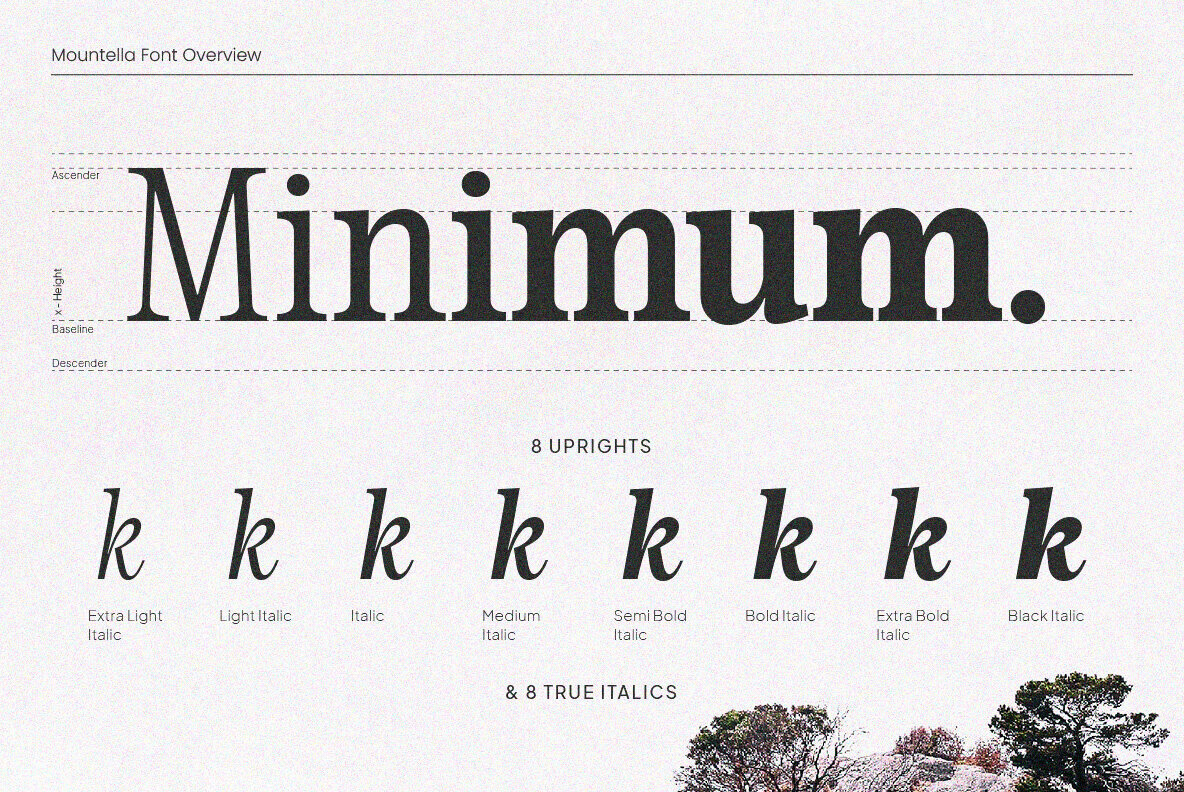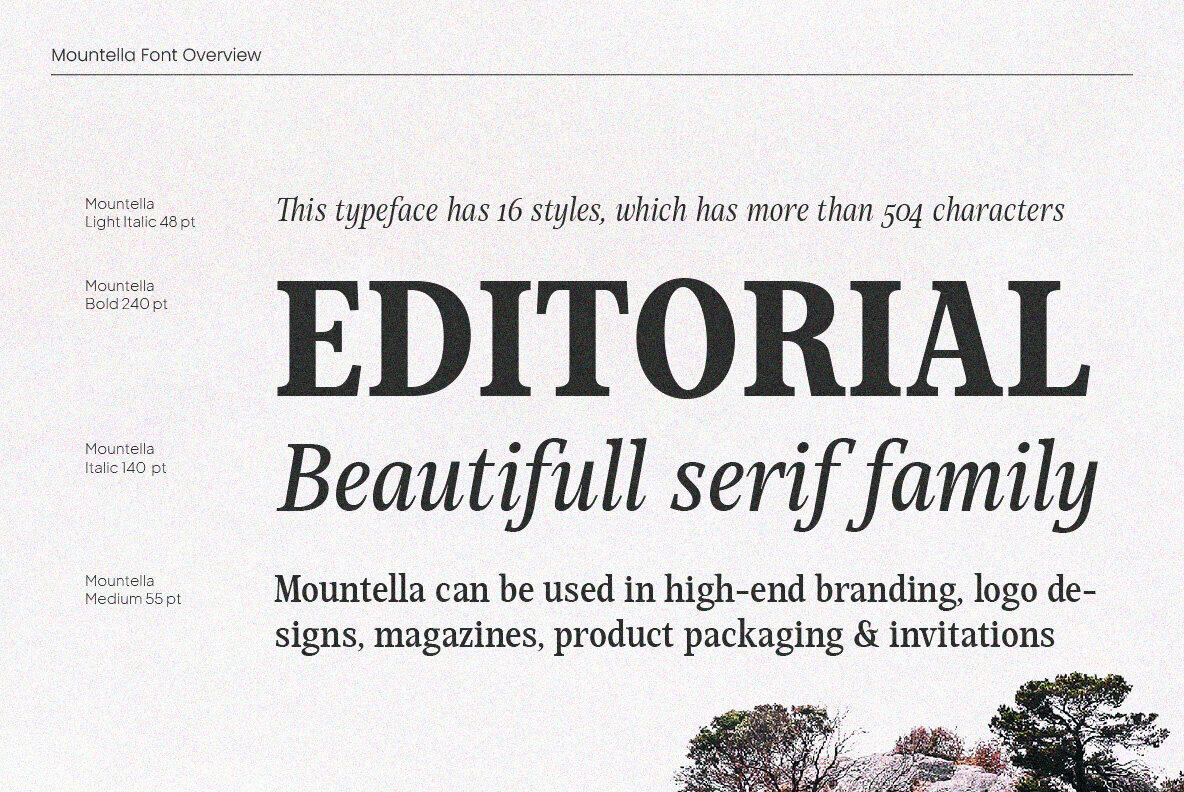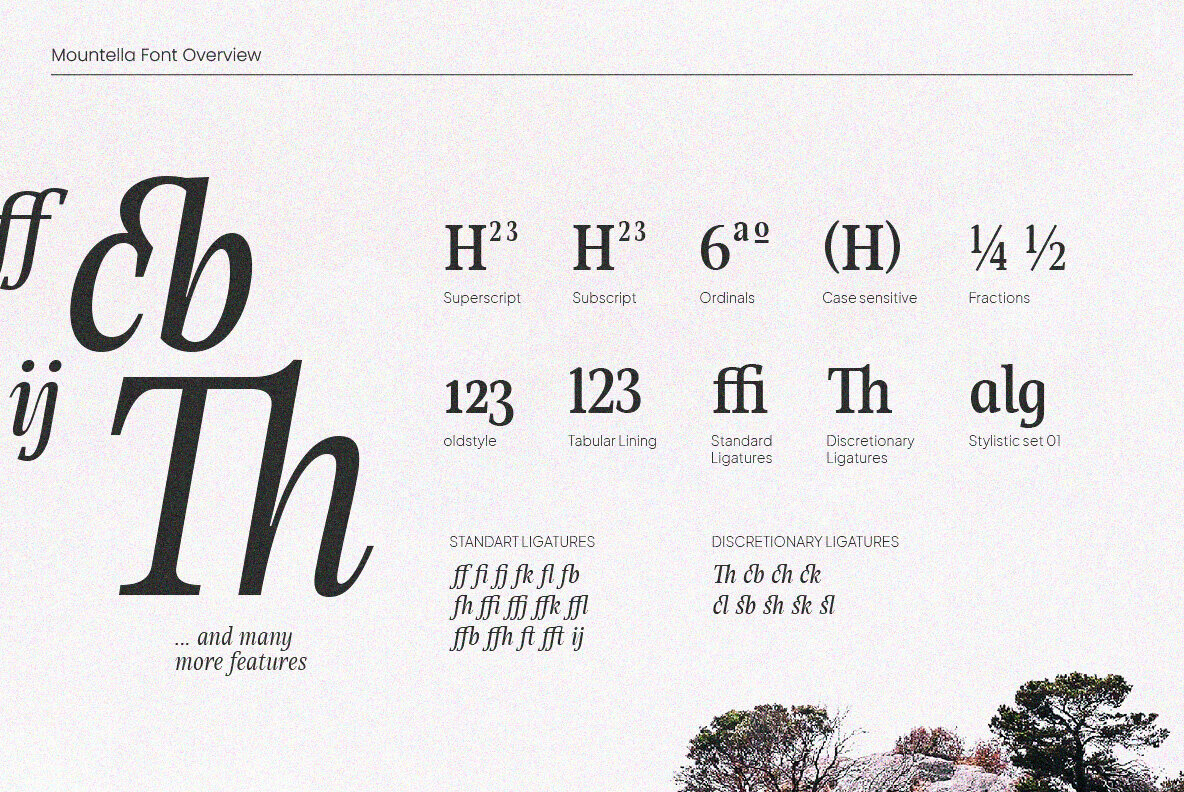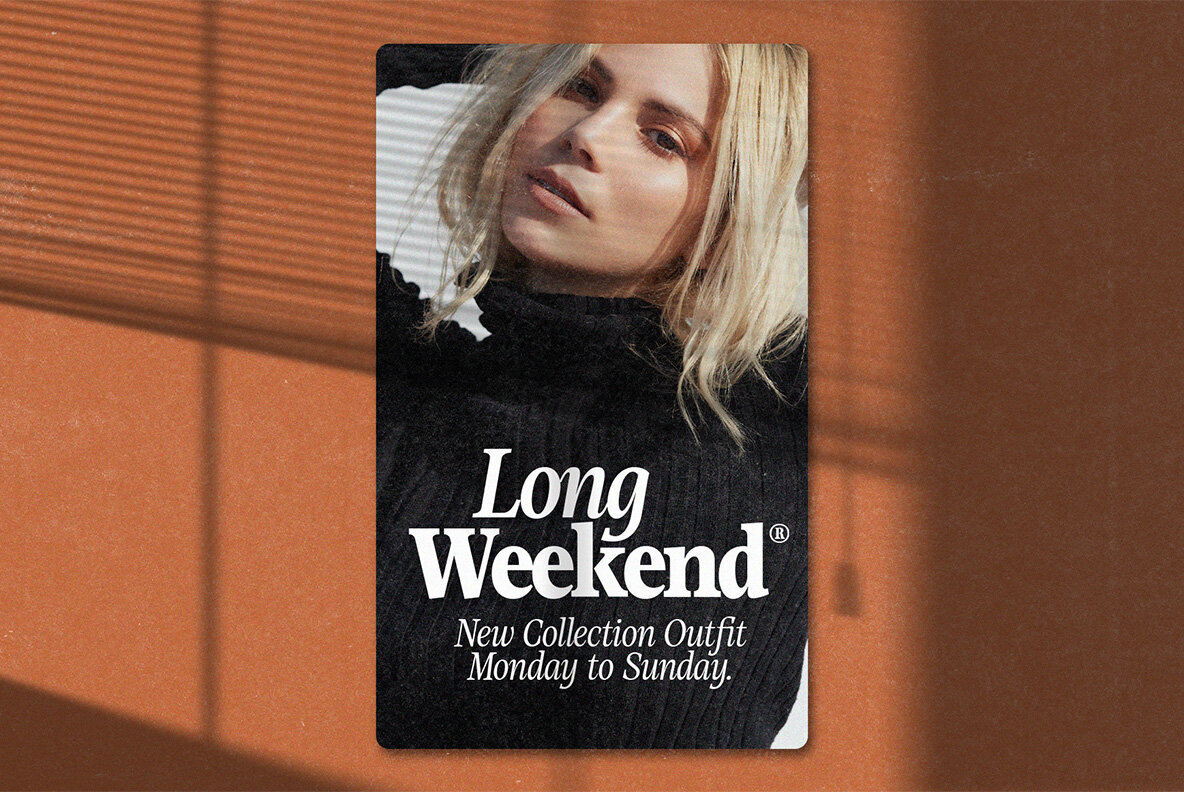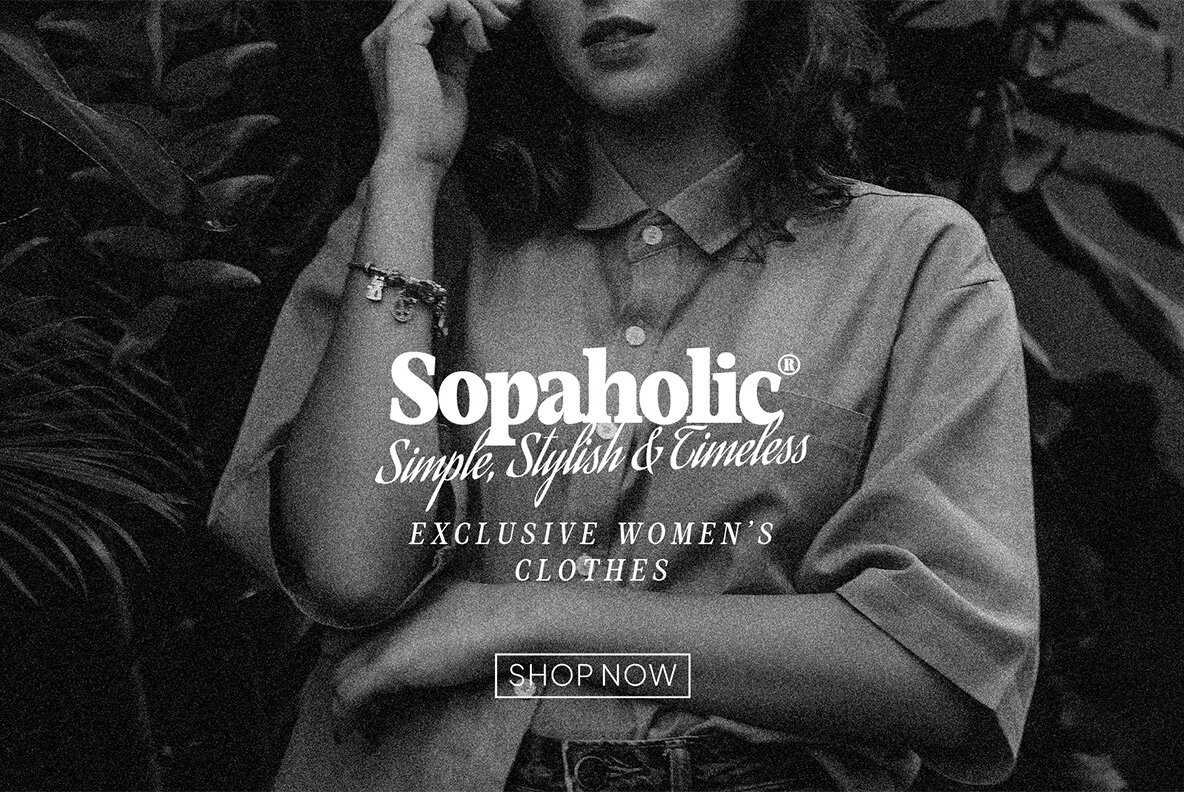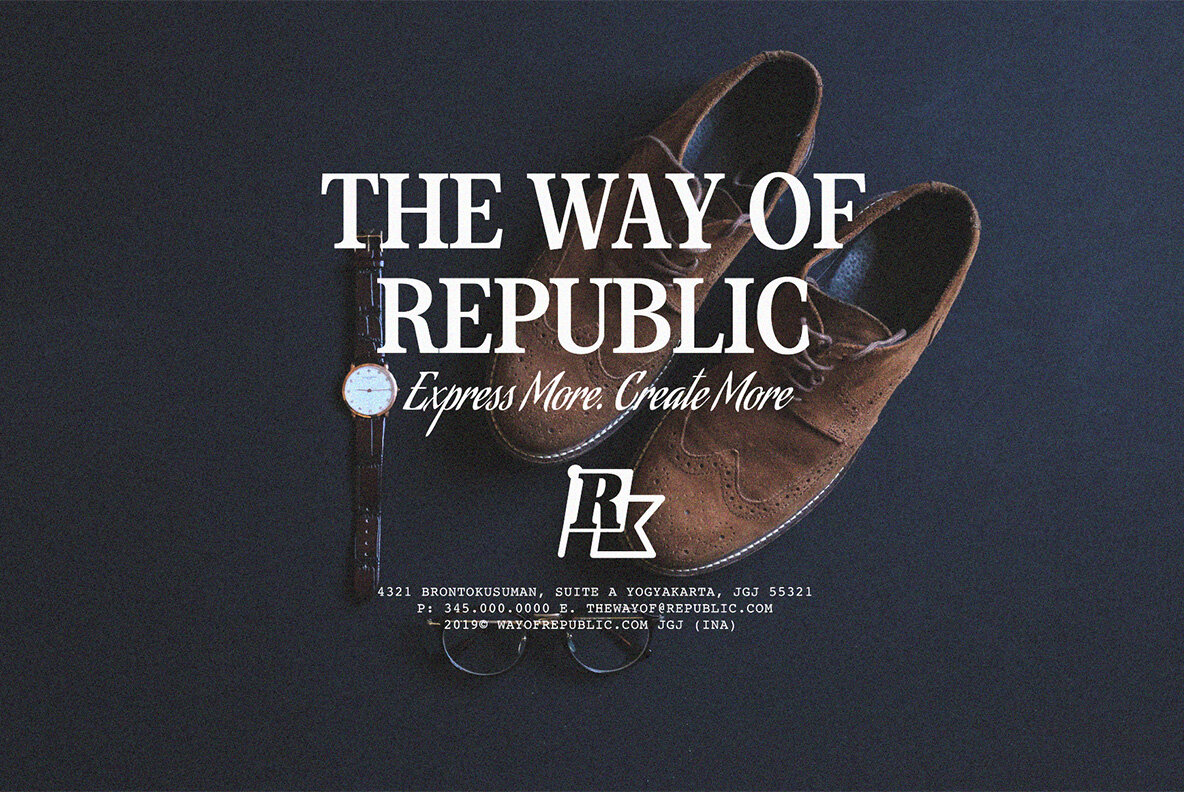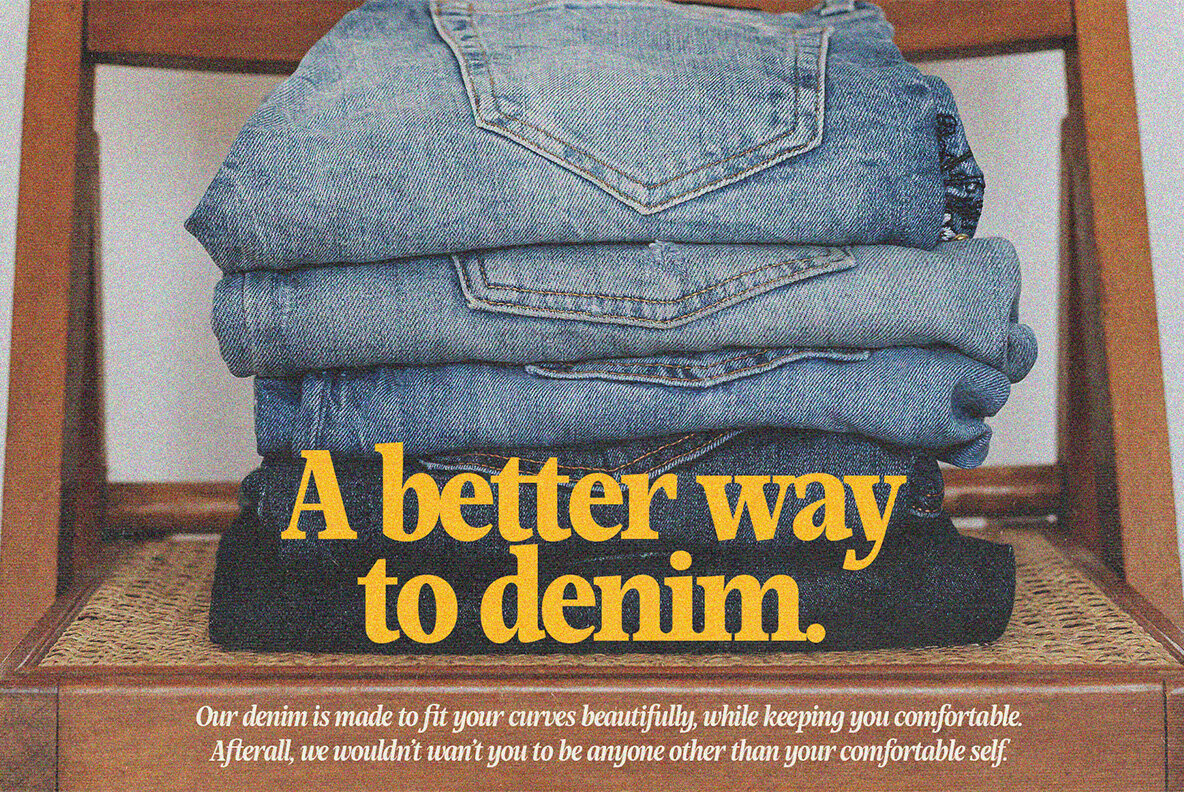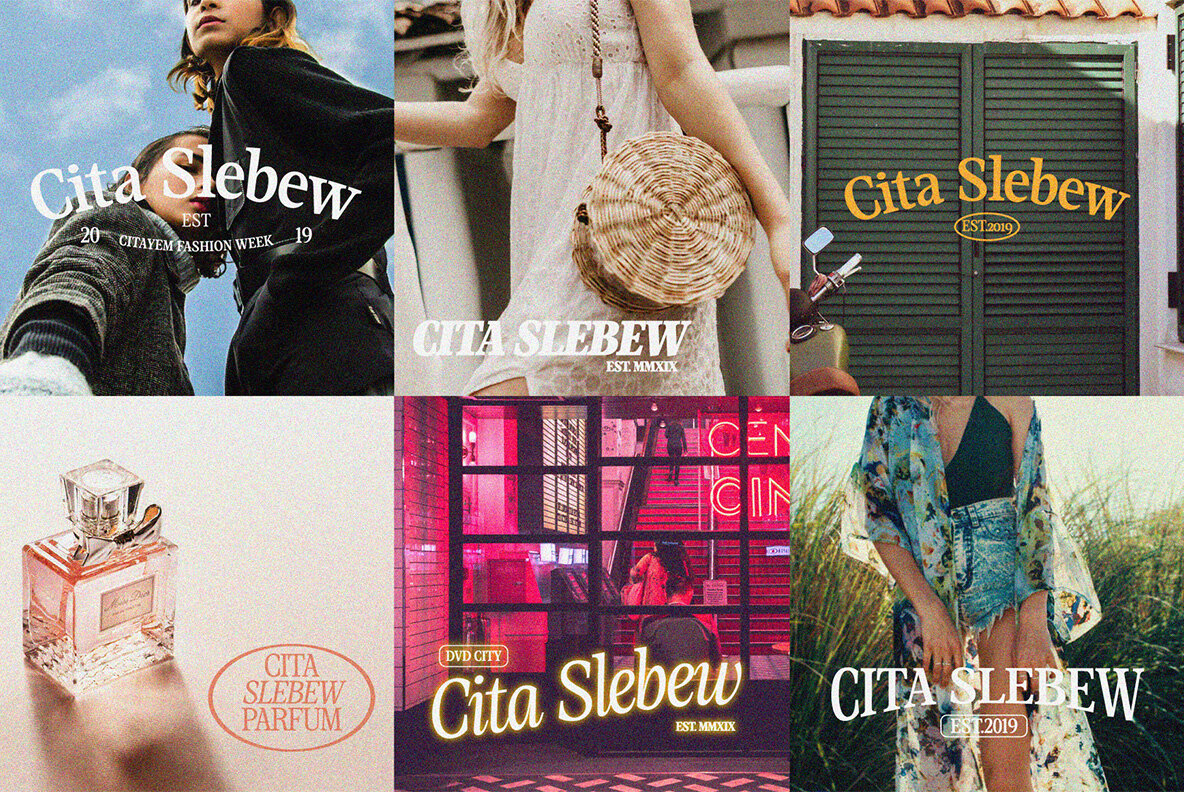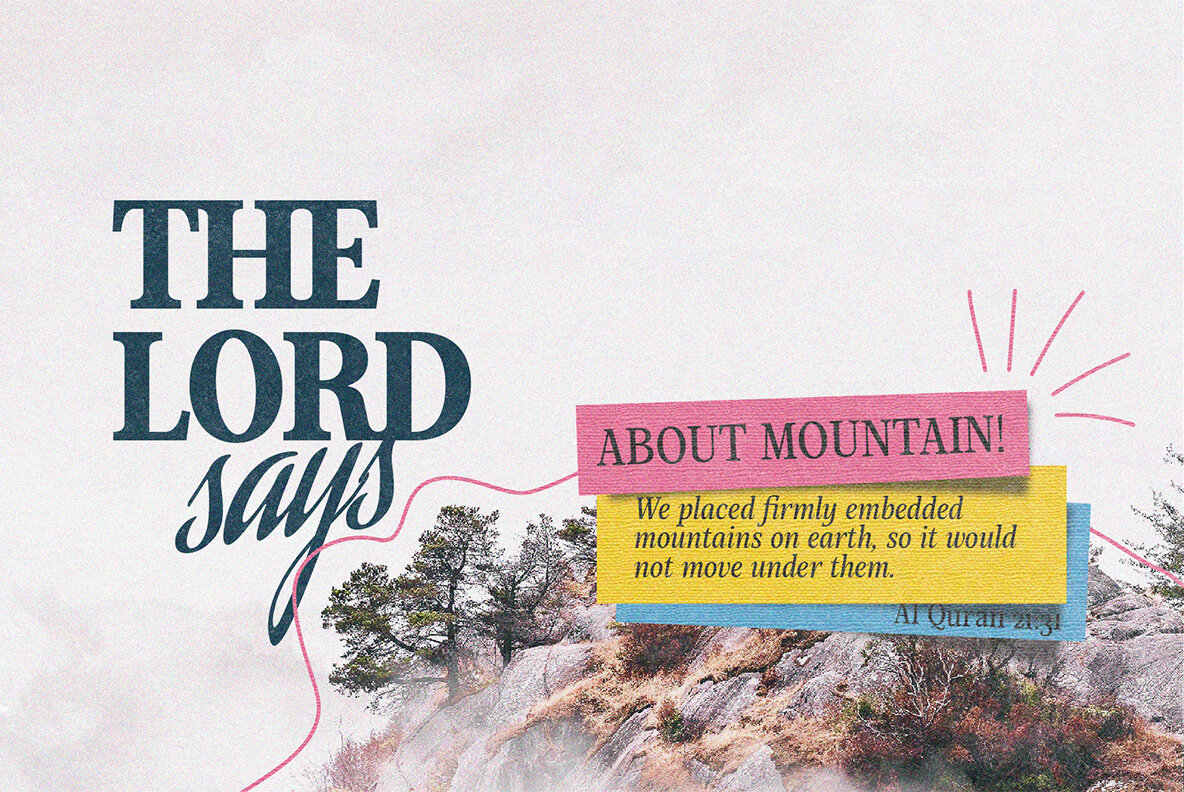
Mountella Font
Mountella is a modern editorial serif font family that includes 18 fonts, uprights, italic, and 2 variable font from Extra Light to Black which has more than 500 characters, and still has all the nostalgic vibes!.
Mountella is a beautiful serif family that includes many visual details, adding uniqueness that looks incredible in both large and small settings as a display and body text. Mountella can be used in high-end branding, logo designs, magazines, product packaging & invitations.
One thing to note about Mountella is the letter spacing. It was intentionally for clean reading if you wanted to use it for the body type, so I recommended setting the spacing a little tighter for display use (around -10 to -50 should do!).
Design Tips: combine the regular and italic, whether all in one word or body text for logo or quote. Adjust your letterspacing to add more groove! Tighter letterspacing for large headers.